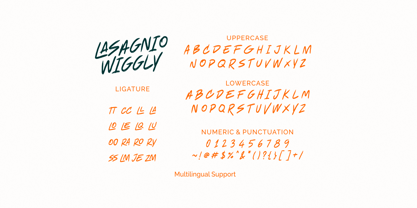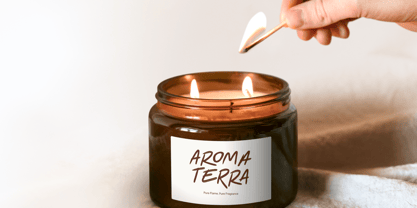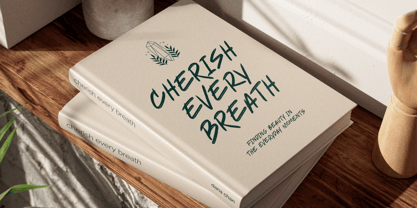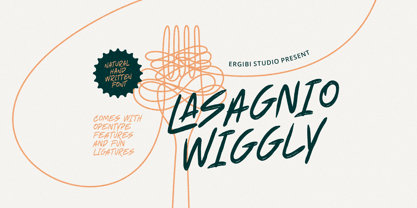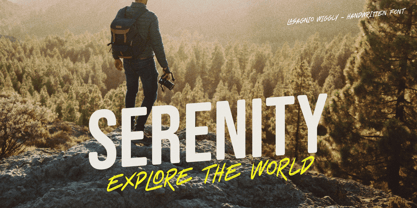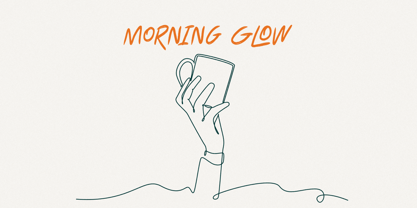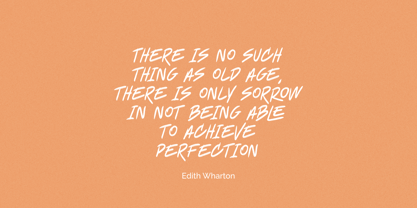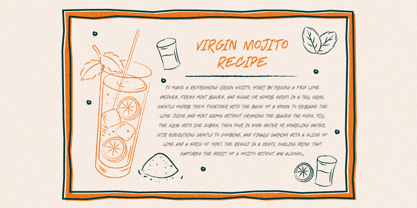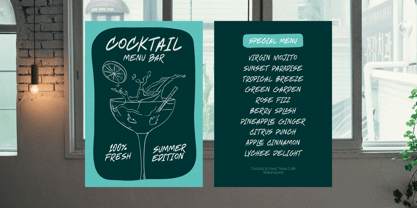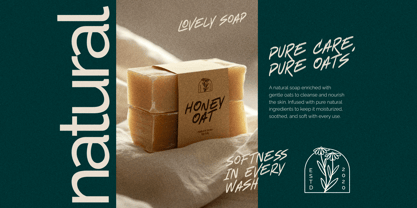
Lasagnio Wiggly
by Ergibi Studio
The Lasagnio Wiggly Font Family was designed by Riyadh Rahman and published by Ergibi Studio. Lasagnio Wiggly contains 1 styles. More about this family
Lasagnio Wiggly is a natural handwritten all-caps font with a playful twist. Its wiggly, imperfect strokes capture the charm of casual handwriting, giving every word a funny and lighthearted feel. Perfect for posters, quotes, packaging, or any design that needs a touch of humor and personality, Lasagnio Wiggly brings a warm, human touch to your creative projects. if you have any questions, don’t hesitate to contact us Ergibi Studio
Designers: Riyadh Rahman
Foundry: Ergibi Studio